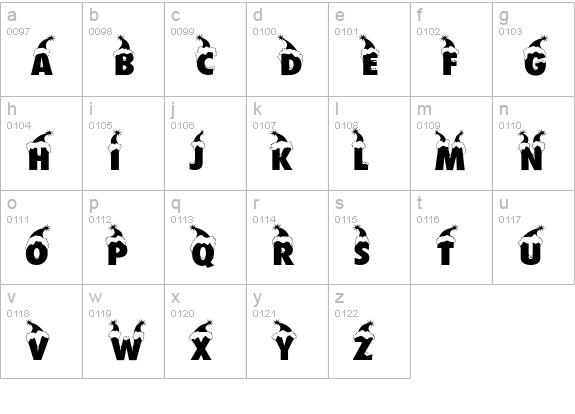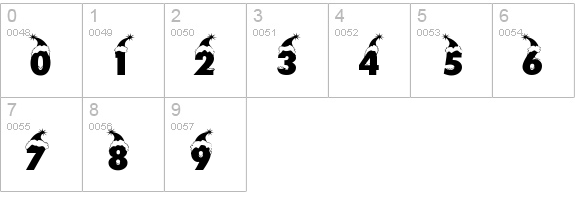
Muetze Font Details
Muetze font is a captivating and versatile typeface that exudes modern elegance and sophistication. With its sleek lines and stylish curves, this font is perfect for adding a touch of refinement to any design project. Whether you're creating a logo, branding materials, or a website, Muetze font will elevate your work to the next level. The best part? Muetze font is completely free to download at FontsMarket.com. That's right, you can enjoy the beauty and versatility of this stunning font without spending a dime. So why wait? Download Muetze font today and take your designs to new heights!